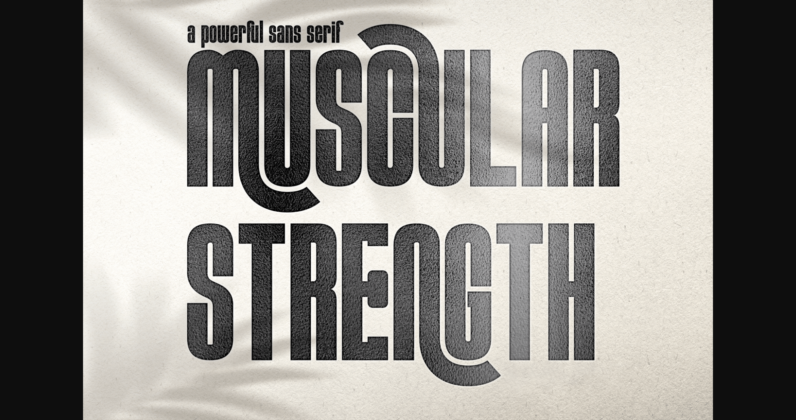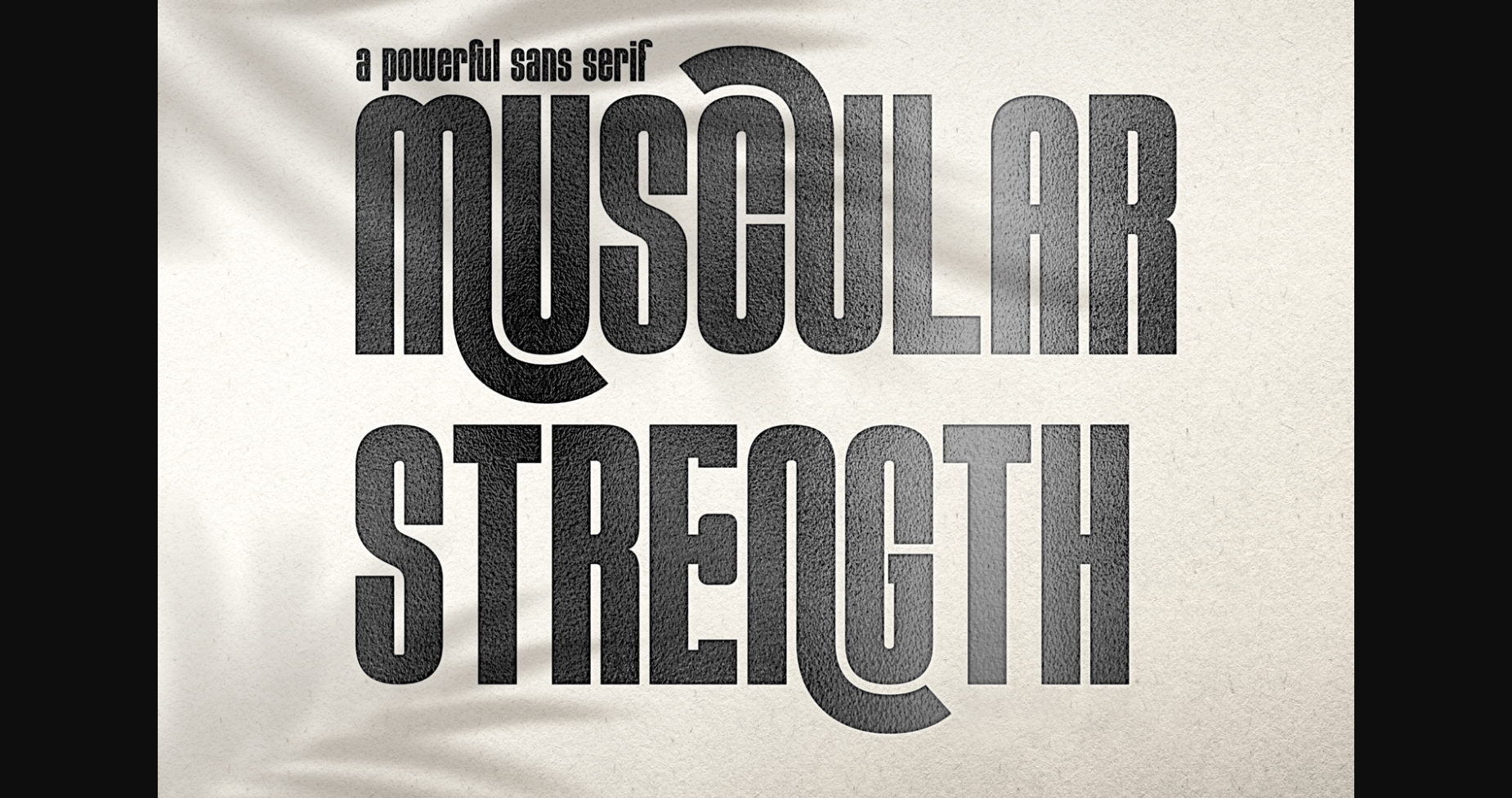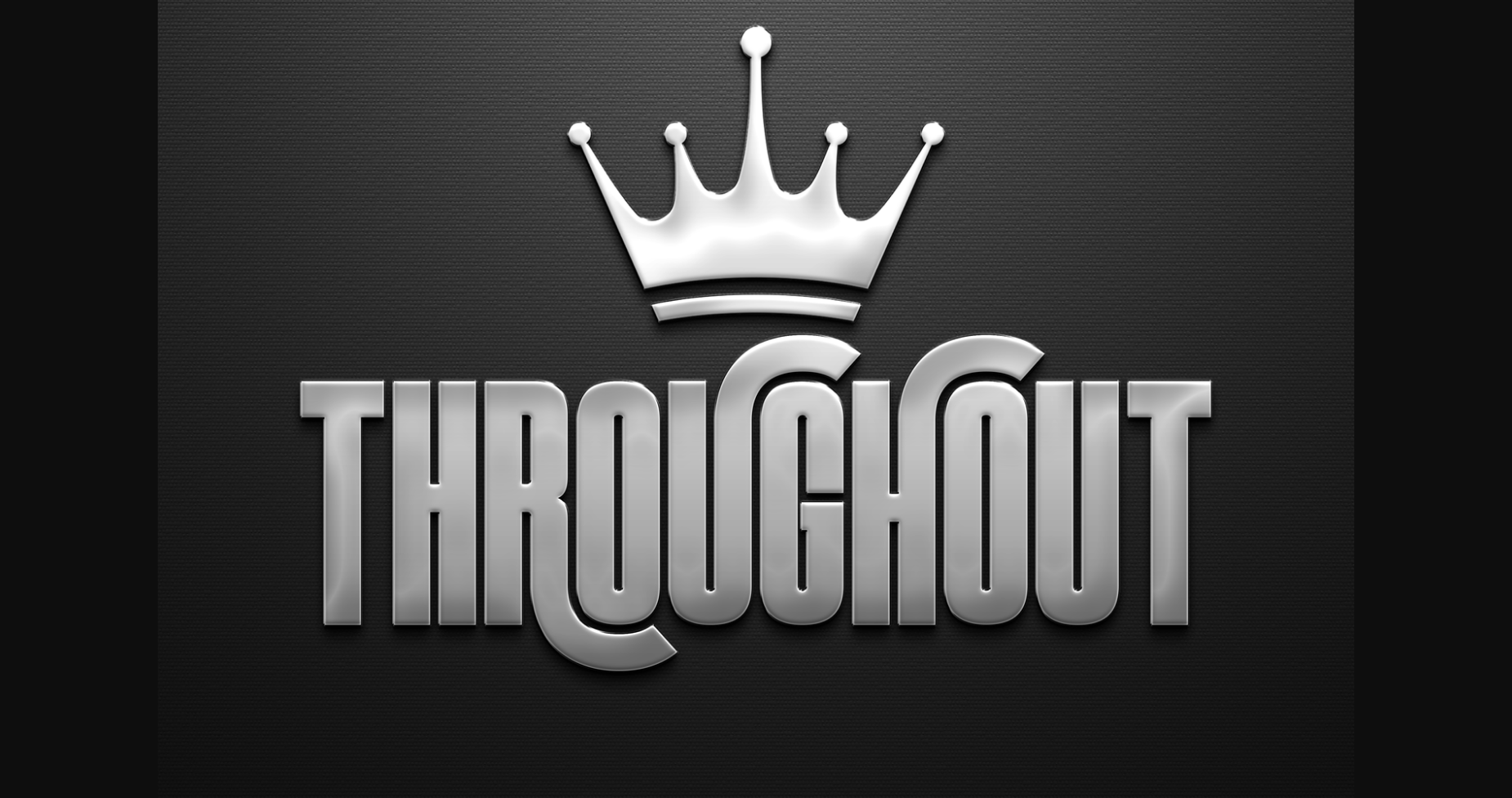
About Muscular Strength Font
Muscular Strength is an elegant, uniquely designed sans serif font. It is PUA encoded which means you can access all of the glyphs and swashes with ease!